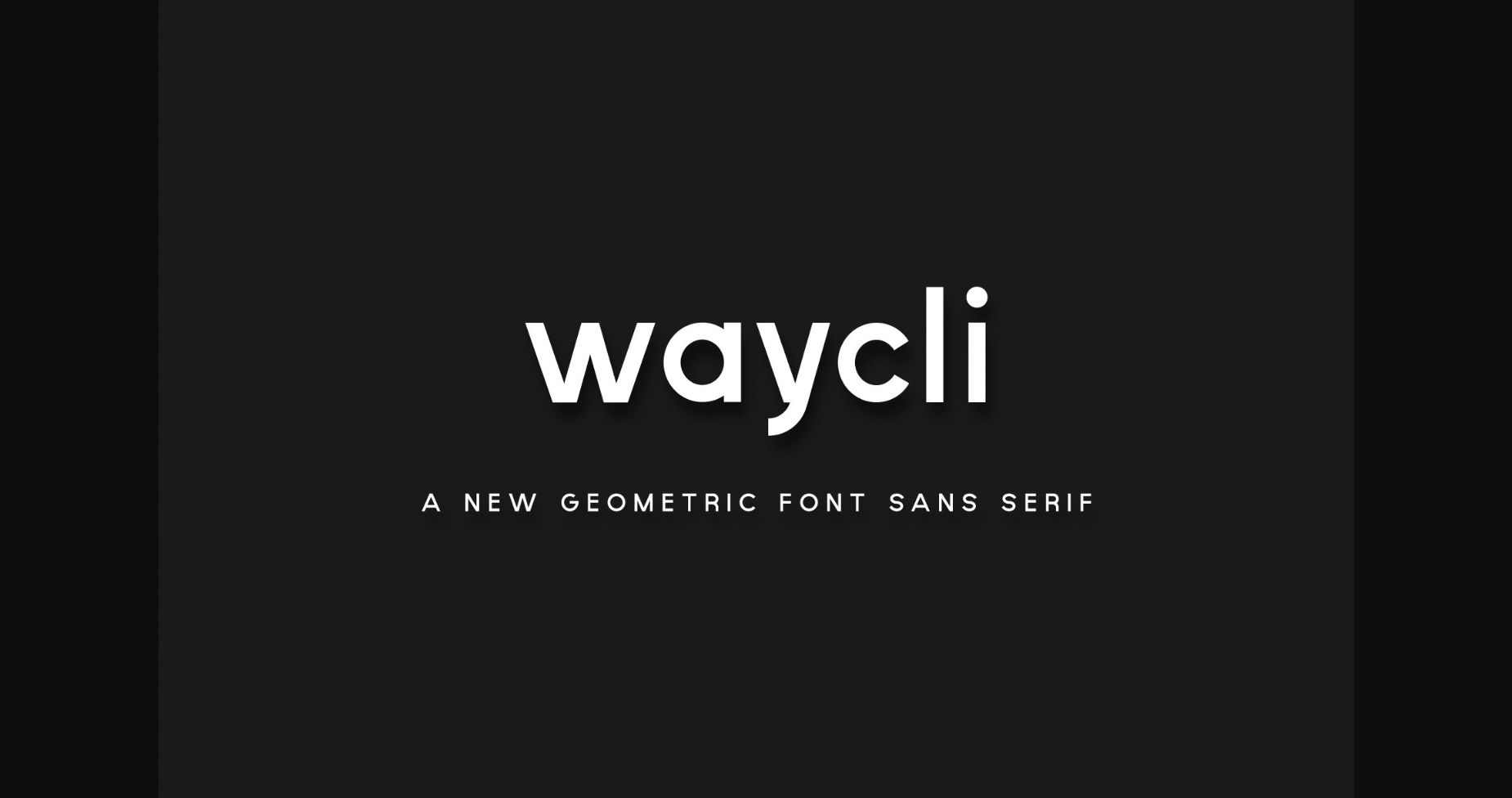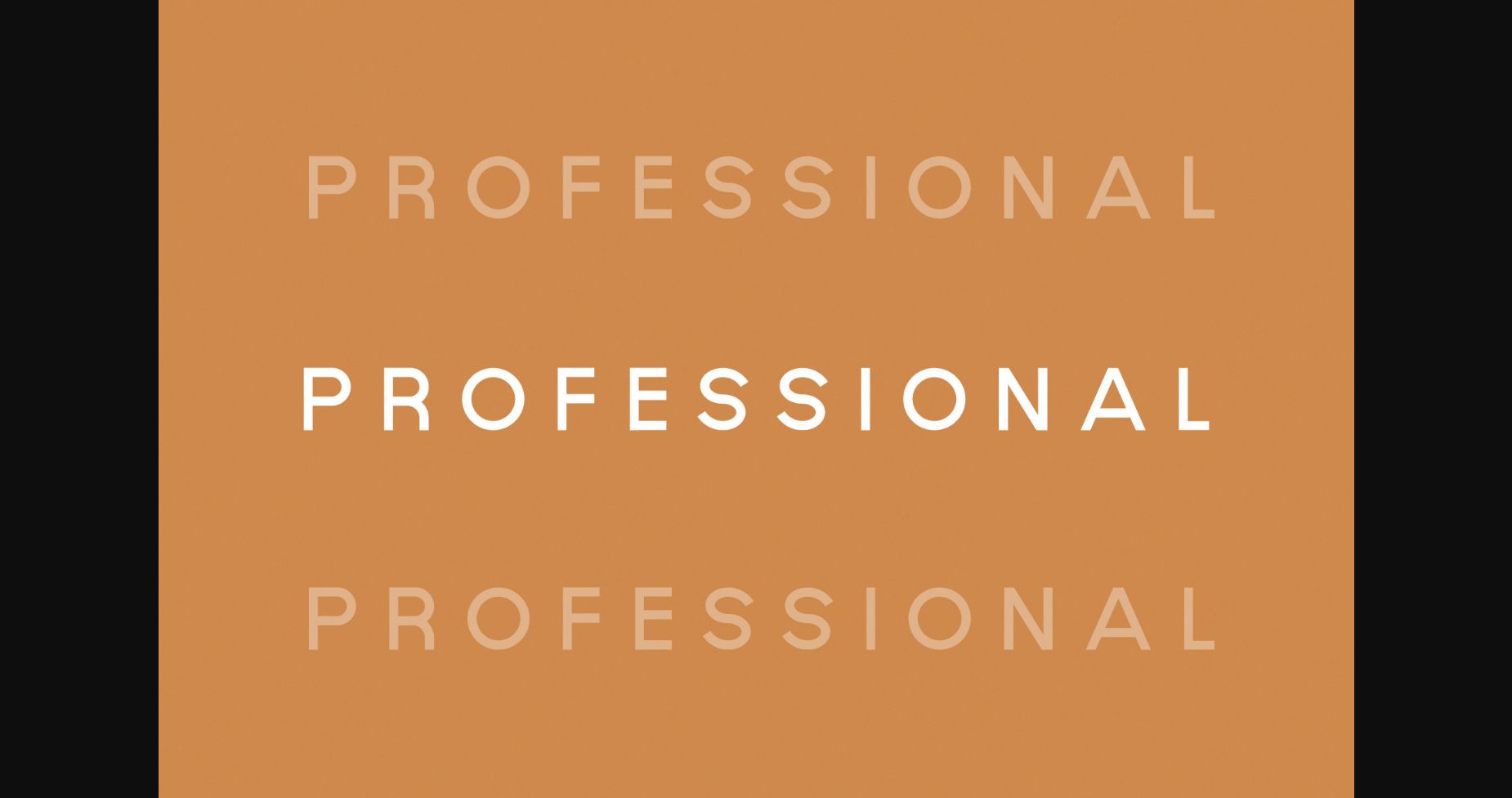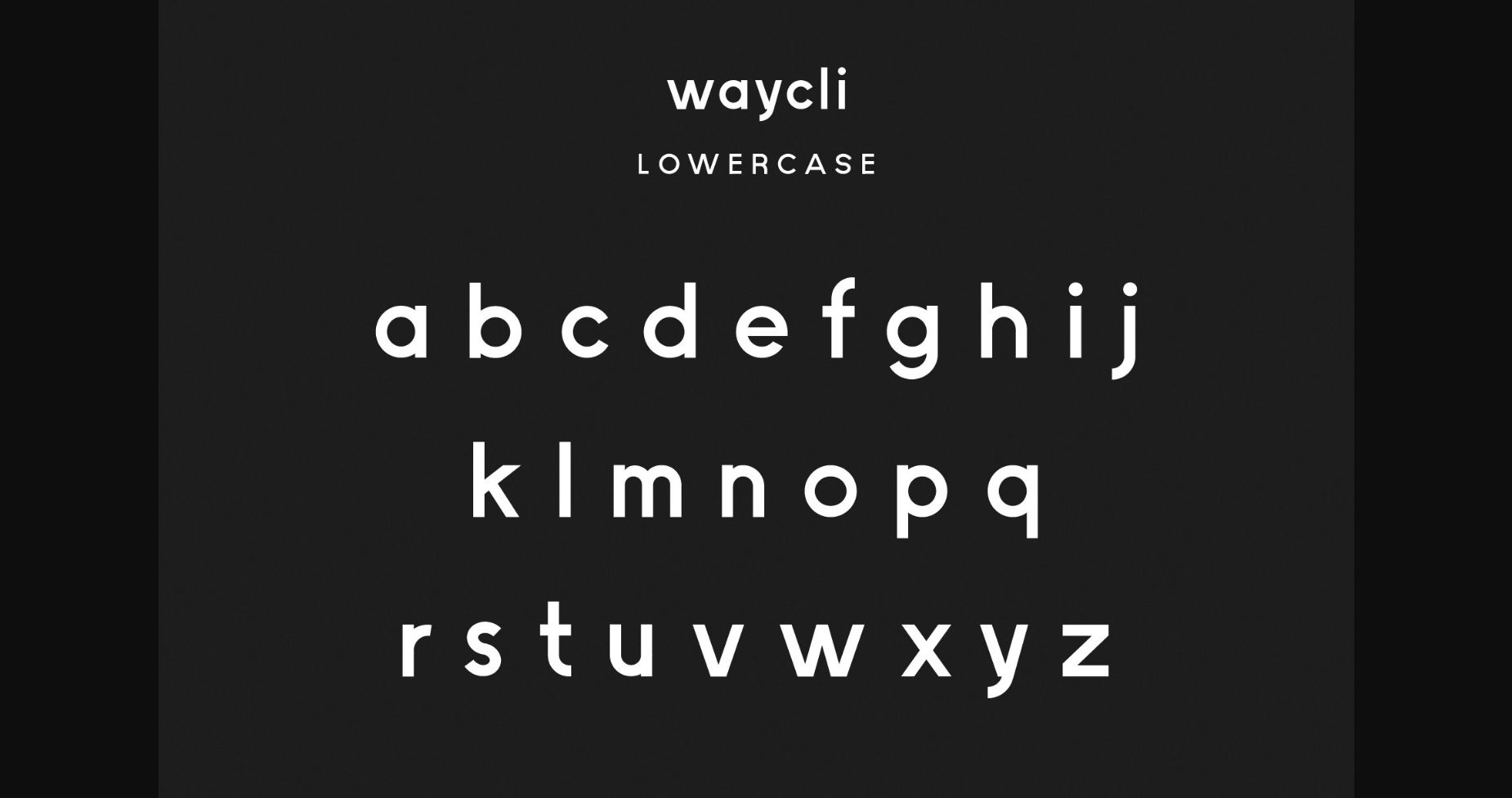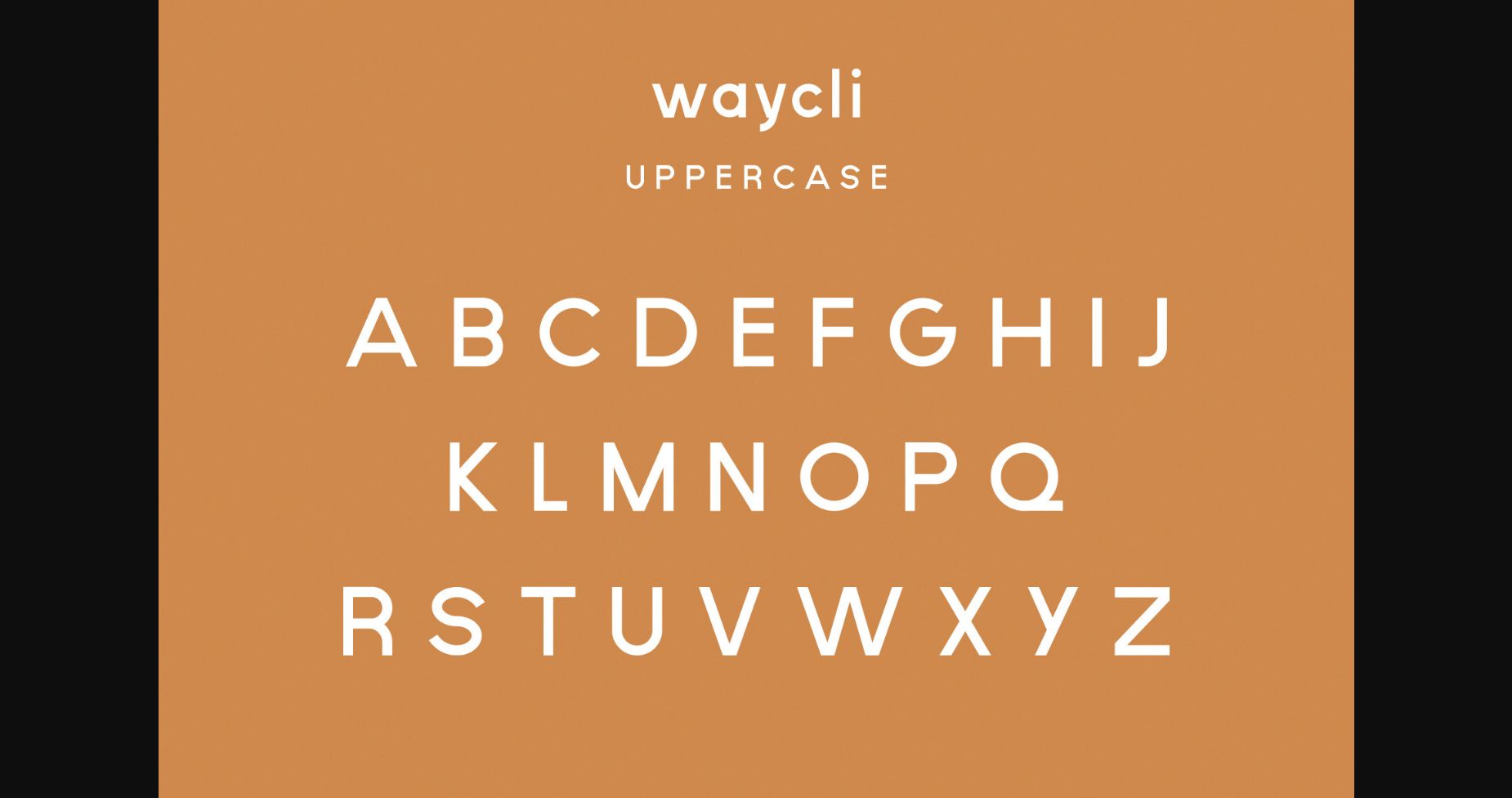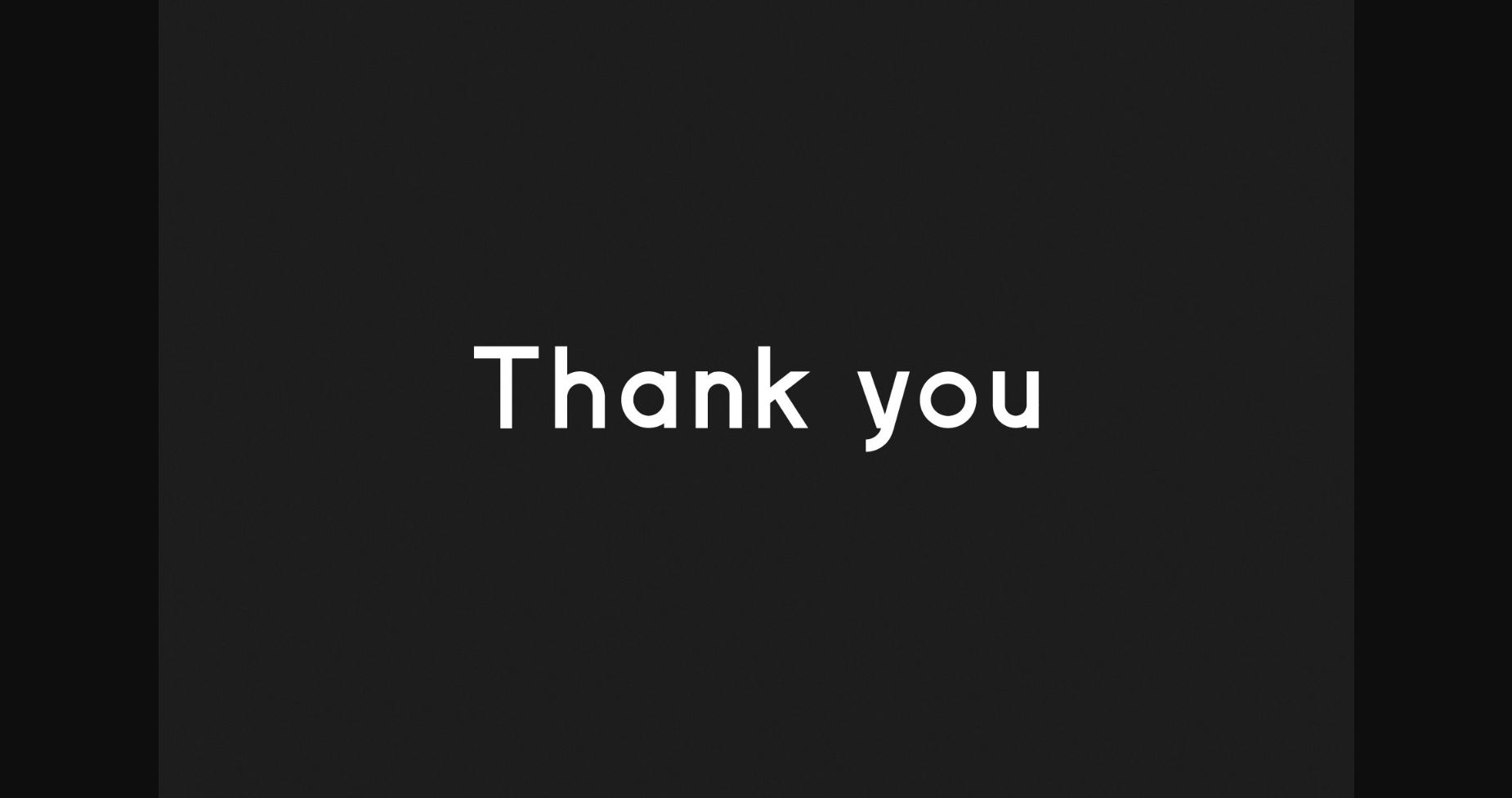
HomeSans Serif FontsWaycli Font Sans Serif Fonts Waycli Font FacebookXPinterestWhatsApp 1 of 7 ... Waycli Font Poster 2... Waycli Font Poster 3... Waycli Font Poster 4... Waycli Font Poster 5... Waycli Font Poster 6... Waycli Font Poster 7... About Waycli Font Waycli is a cool and modern looking sans serif font. It is suitable for book texts, documentation, business reports, business correspondence, magazines, newspapers, posters, advertisements, multimedia, and corporate design. DOWNLOAD NOW People also explored Hopeflow Font Spicy Snack Font Kechappu Cactus Story Font fabulusly Script Inkgasm Font Aline – Handwritten Font Mauload Font Midnight Font 332 0 TagsWaycliWaycli Font Previous articleMiori FontNext articleMegidana Font LEAVE A REPLY Cancel reply Comment: Please enter your comment! Name:* Please enter your name here Email:* You have entered an incorrect email address! Please enter your email address here Website: Save my name, email, and website in this browser for the next time I comment. Personal Use Free Sefiya Personal Use Free Read more about this font The Quick Personal Use Free Read more about this font Manhattan Personal Use Free Read more about this font Quick Count Personal Use Free Read more about this font BLOG How to Cut Any Font on Cricut: Convert a Font to SVG (Free) Turn any font into a clean SVG so it cuts crisp on Cricut - a quick 3-step workflow using a free font-to-SVG tool. Best Fonts for YouTube Videos: Make Your Thumbnails Stand Out Exploring Font Trends Free vs Paid Fonts: Why Investing in Premium Fonts Is Worth It